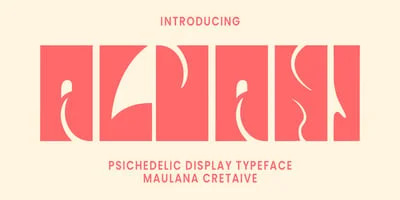
MC Alvani Font
MC Alvani Font is ideal for creative design projects including boutique fashion branding, artisan product packaging, handcrafted business logos, creative agency materials, lifestyle blog headers, artistic event invitations, craft workshop signage, personal branding projects, vintage-inspired designs, and specialty retail materials that require distinctive personality and authentic character.
What makes MC Alvani Font so exciting is its unique blend of contemporary sophistication with artisanal charm that creates memorable visual impact while maintaining excellent readability across various applications. This distinctive typeface features carefully crafted character details, harmonious proportions, and subtle design nuances that add personality and warmth to any project, making it perfect for brands seeking to establish authentic connections with their audiences.
MC Alvani Font typically comes in versatile font families including regular, bold, light, and italic variations, along with stylistic alternates, decorative elements, and extended character support, providing designers with comprehensive tools to create cohesive brand identities and flexible typographic solutions for diverse creative applications.
This captivating MC Alvani Font offers designers an exceptional opportunity to elevate their creative projects with typography that perfectly balances professionalism and artistic flair. Whether you're developing boutique branding, creative portfolios, or artisanal marketing materials, this font delivers distinctive character while ensuring clear communication. The refined design elements and versatile weight options make it particularly valuable for creative professionals and small businesses seeking to differentiate their visual identity through typography that communicates authenticity, creativity, and sophisticated taste in today's competitive marketplace.